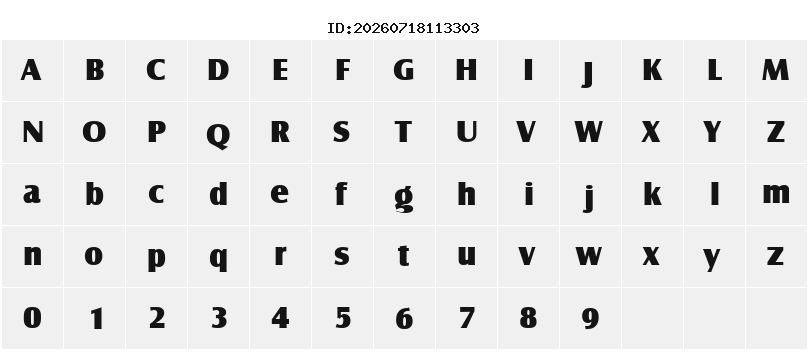
CastleTUlt Preview
• Font Name: CastleTUlt
• Font ID: URW:CastleT-Ultr:1994
• Full Font Name: CastleTUlt
• PostScript Name: CastleT-Ultr
About CastleTUlt.ttf
CastleTUlt.ttf is a modern, elegant sans-serif font designed for ultimate readability and visual harmony. Perfect for branding, headlines, web design, and print materials.